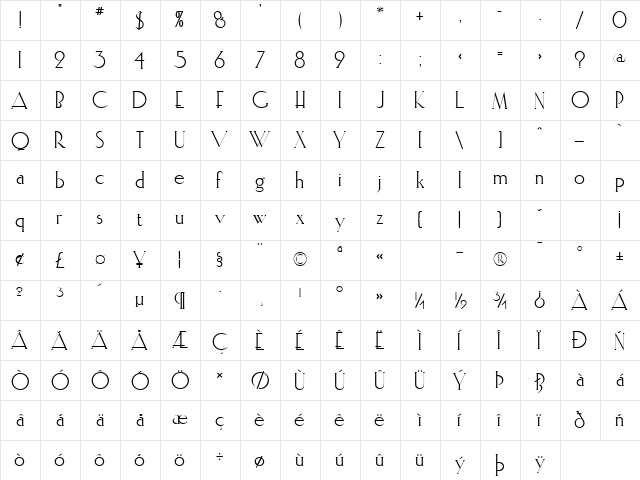
Ballads Regular Font Preview
Ballads Regular
Design Context for Ballads Typeface
Ballads is a composed and adaptable typeface that performs quietly and consistently across a wide range of design contexts.